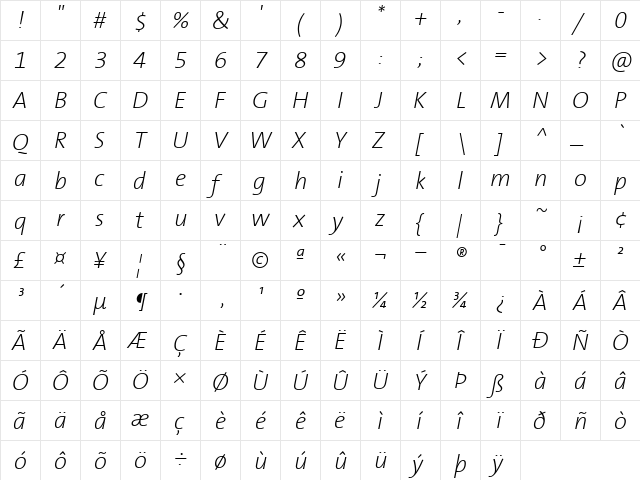
TheSans Italic
Design Context for TheSans Typeface
TheSans is a composed and adaptable typeface that performs quietly and consistently across a wide range of design contexts. The dynamic lean of this cut emphasises speed and emphasis in any layout.
Pro Tip: Try TheSans for annotation and caption copy alongside an upright companion — the contrast in angle creates a dynamic but ordered typographic system.